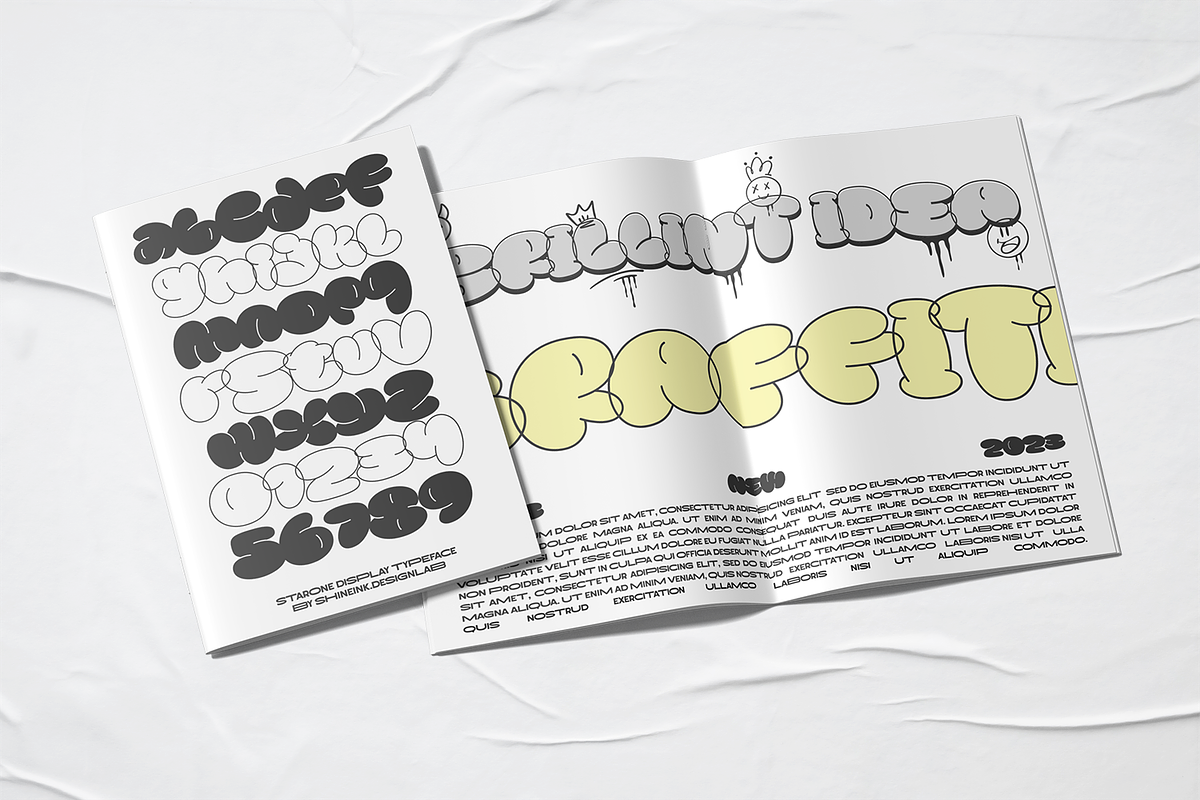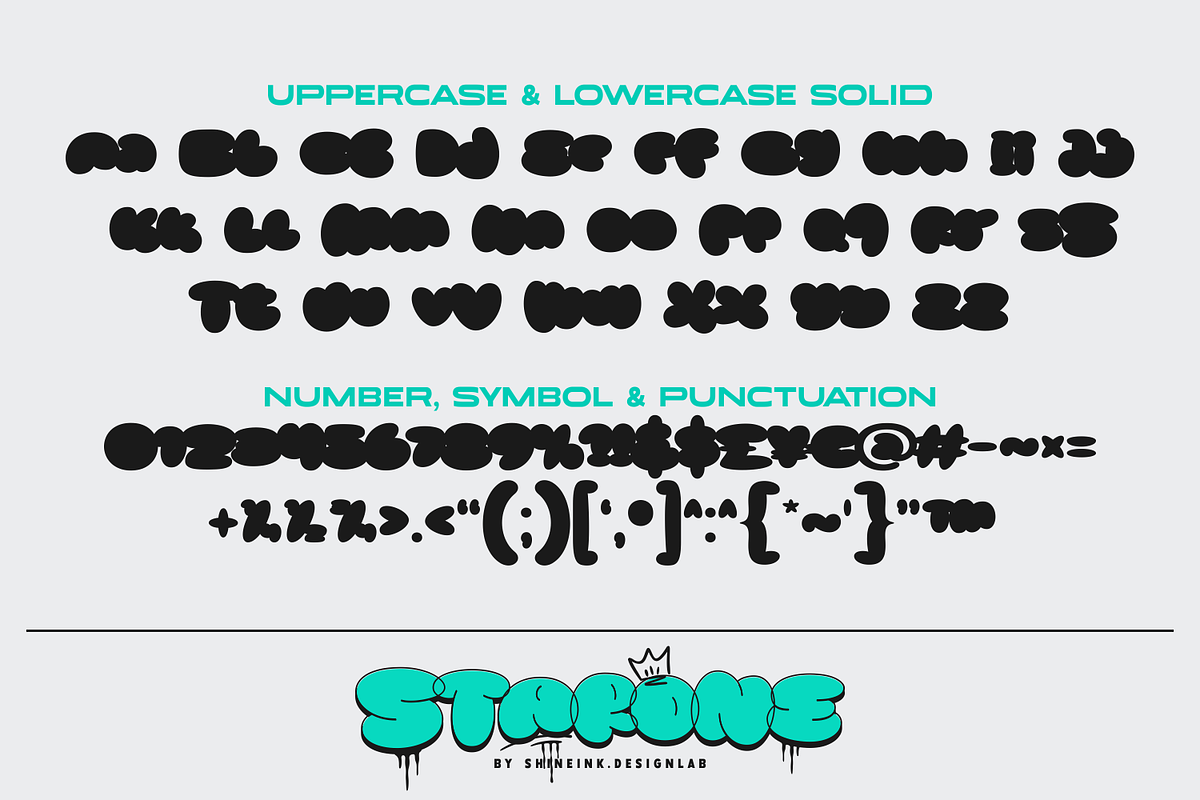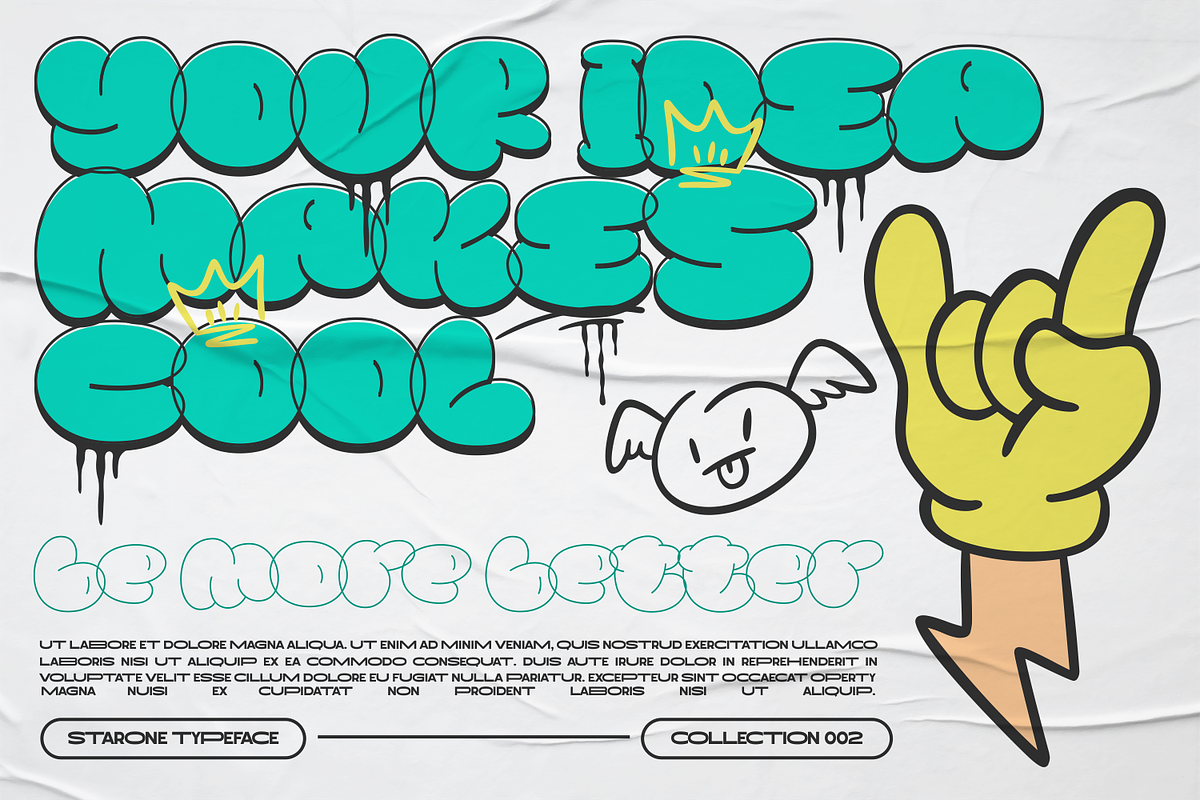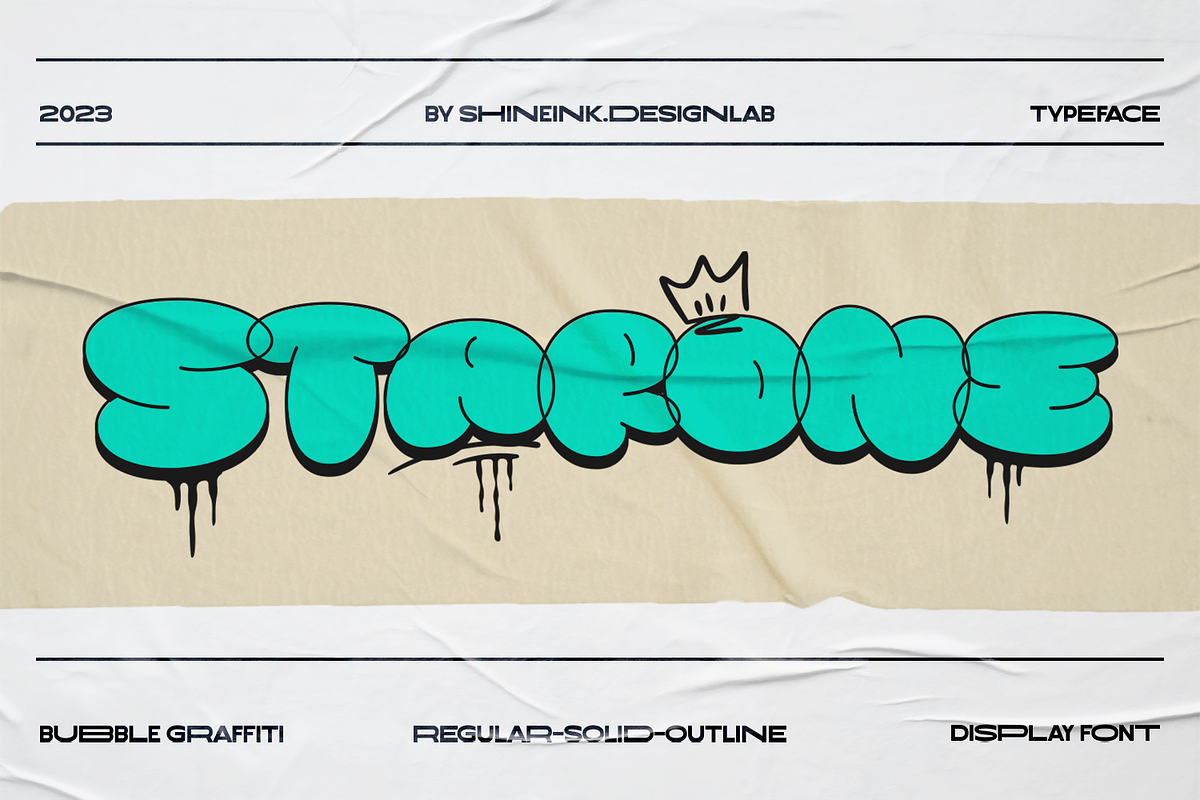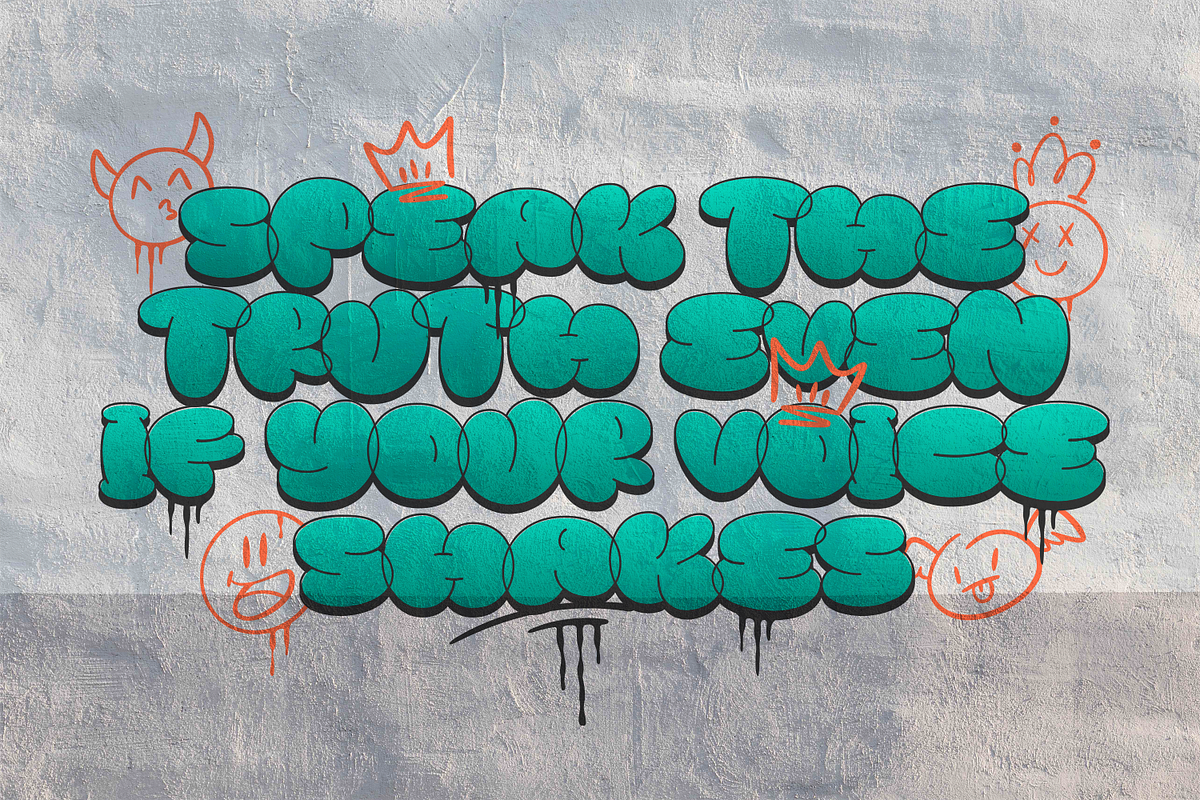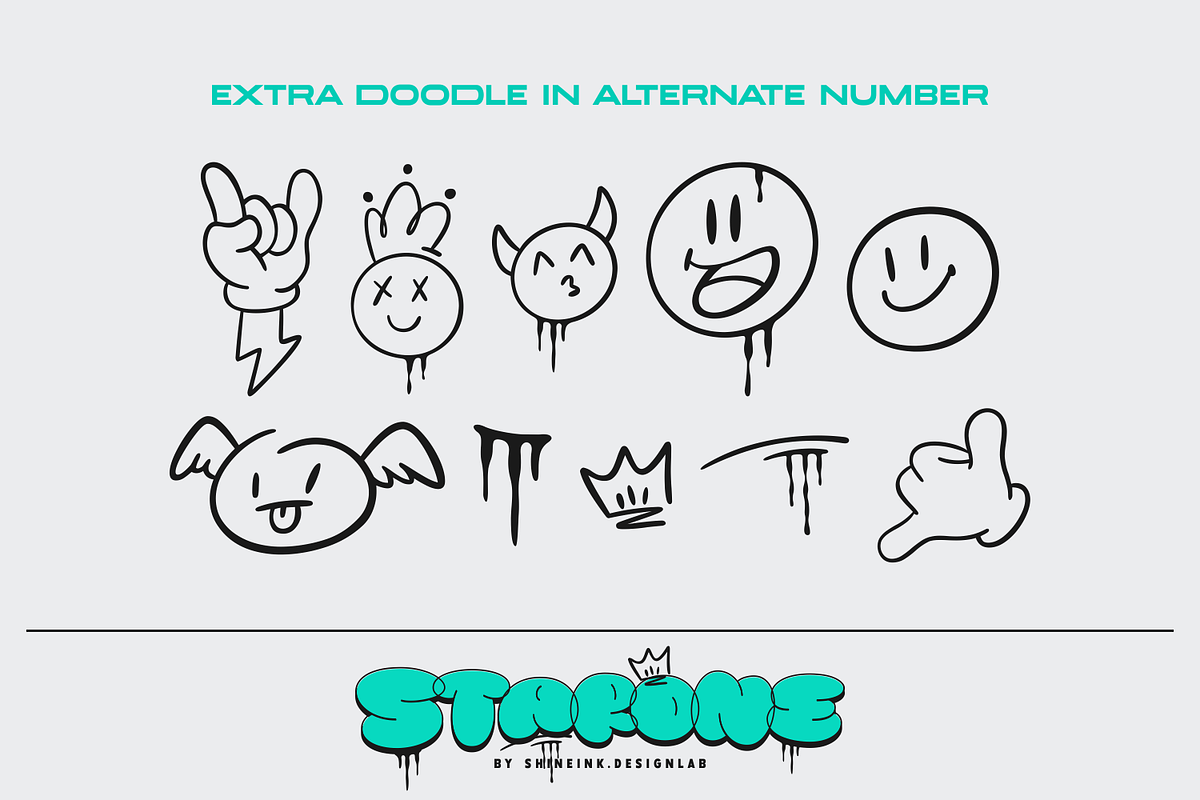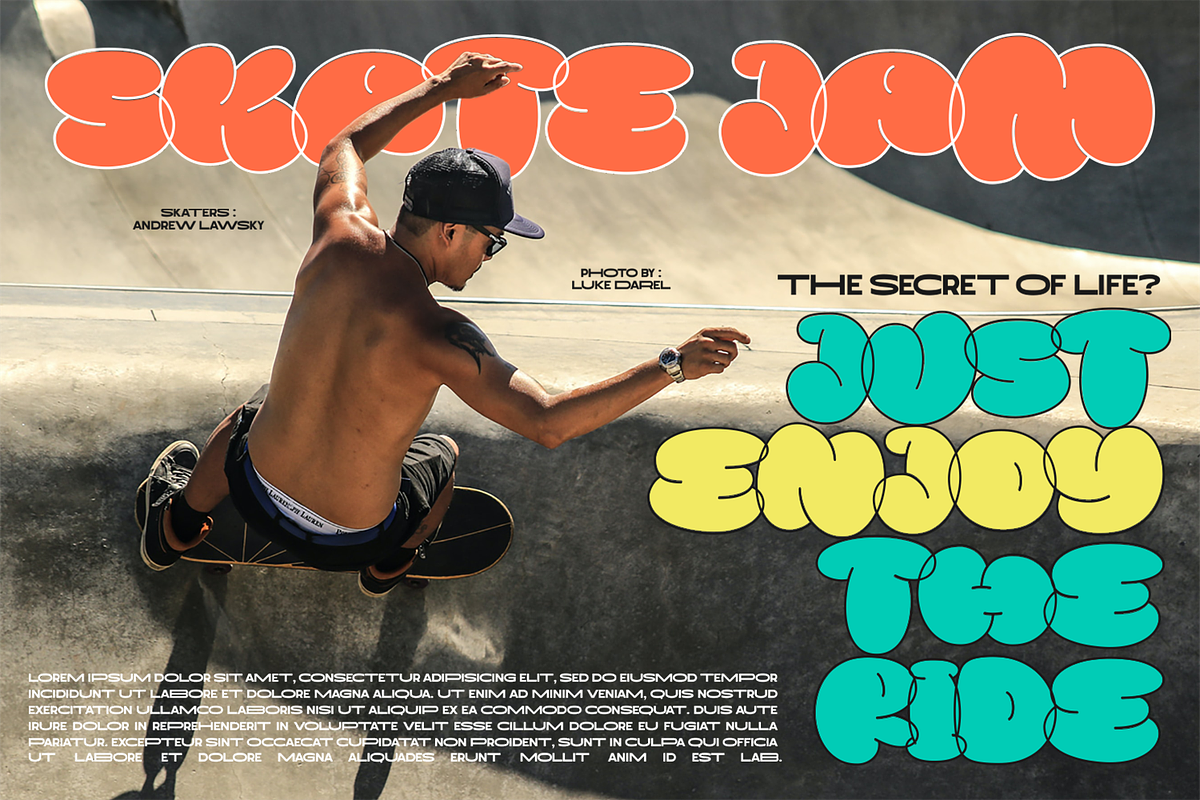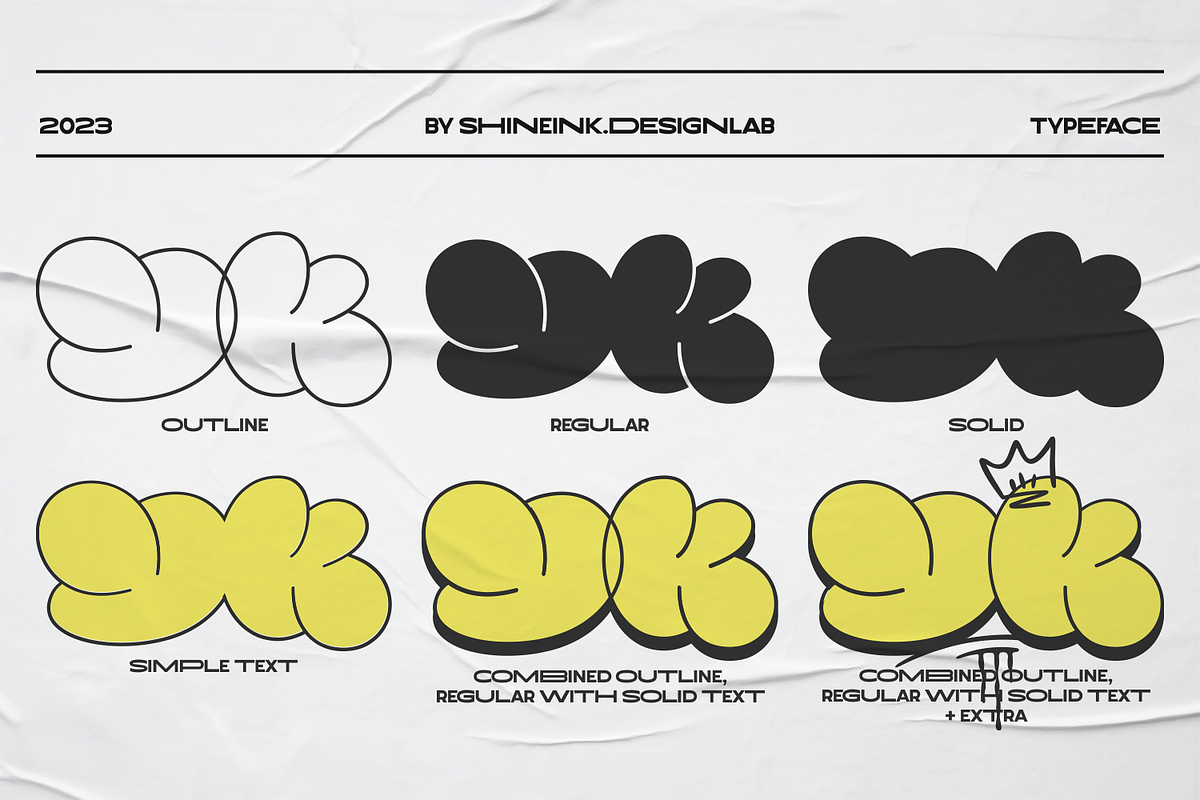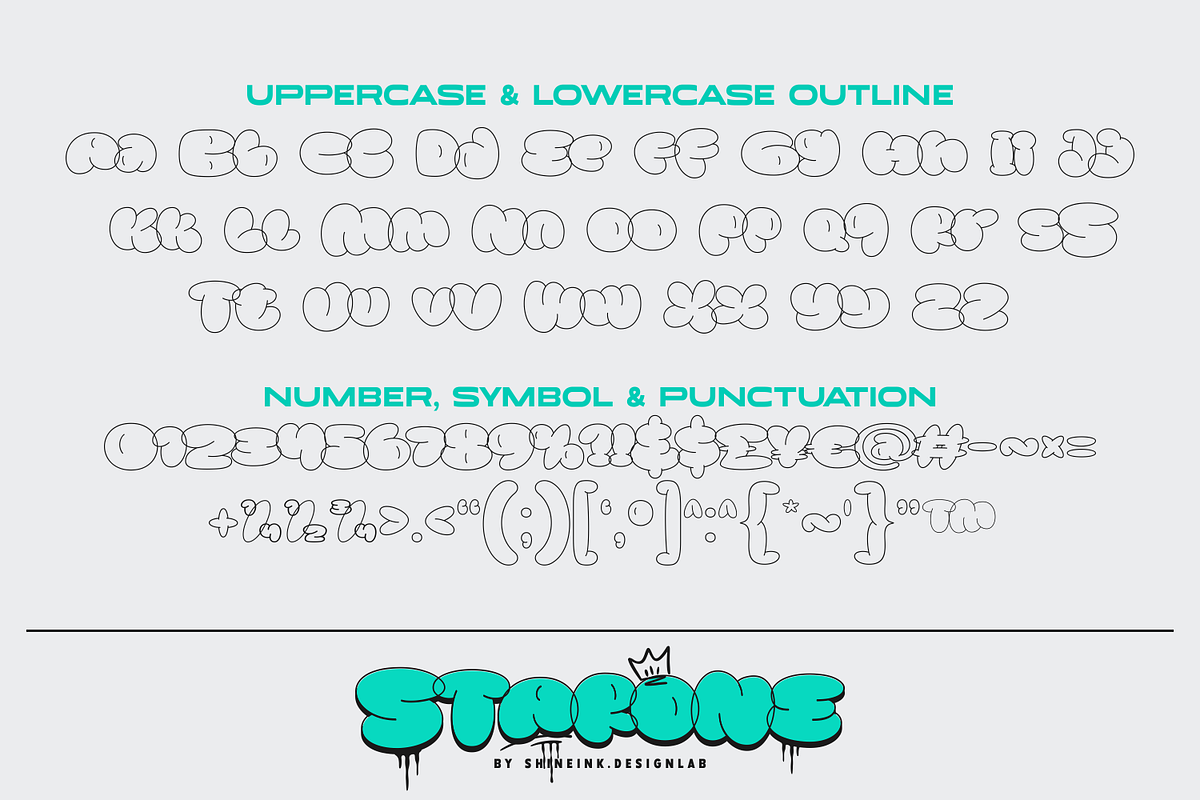
Starone
I'm present to you, a bubble graffiti typeface, called Starone!
This Starone font effortlessly merges bold and smooth characteristics, resulting in a truly captivating typeface that resonates with the spirit of the streets. It embodies the raw, unapologetic energy of urban artistry, making it the perfect choice for design projects that seek to convey a sense of rebellion, creativity, and modernity.
The robust and rounded bubbles encapsulating each letter exude a playful yet impactful aesthetic. These distinctive elements grant the font a unique personality, allowing it to infuse any design with a sense of exuberance and dynamism. Whether used in posters, logos, streetwear branding, or digital art, this graffiti-inspired font excels at capturing attention and making a bold statement.
The smooth curves and impeccable balance between thickness and finesse ensure legibility while maintaining an unmistakable urban edge. This font embodies the spirit of the contemporary metropolis, where artistry knows no bounds, and creativity thrives in unconventional places. Its boldness commands attention, while its smoothness softens the edges, creating a harmonious and visually engaging composition.
Incorporate this Starone font into your projects to infuse them with an authentic streetwise vibe. It is more than a typeface; it’s an expression of urban culture, a testament to the unfiltered creativity that defines the modern cityscape. Embrace its rebellious spirit and let it breathe life into your designs, making them unforgettable in the ever-evolving urban landscape.
- Lowercase and Uppercase
- Stylistic Doodles in number
- 3 Style Fonts
- Multiple Languages Supported